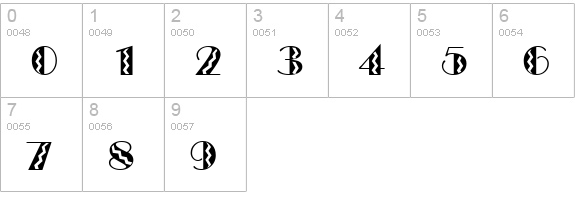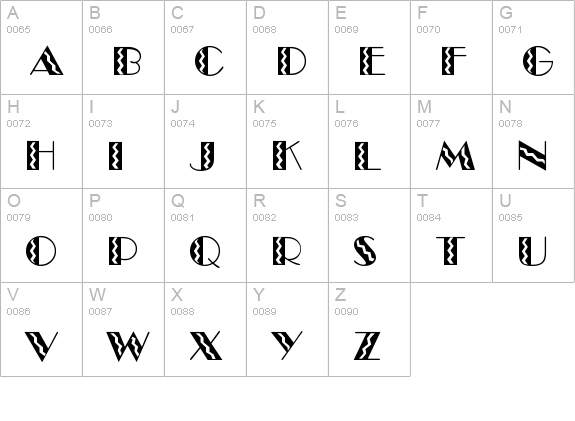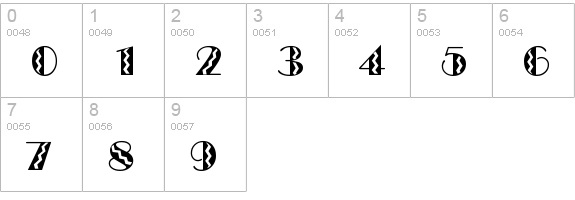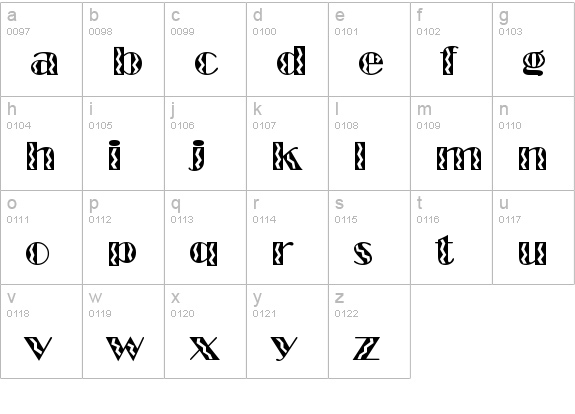
Circus Font Details
The Circus font is a whimsical and playful typeface that captures the spirit of the big top with its bold and decorative letterforms. Perfect for adding a touch of fun and excitement to any design project, this font is sure to make a statement and leave a lasting impression. Whether you're creating posters, invitations, or branding materials, the Circus font is a versatile choice that will bring a touch of vintage charm to your work. Best of all, the Circus font is available for free download at FontsMarket.com, making it easy to add this unique and eye-catching typeface to your collection. Don't miss out on the opportunity to bring a touch of circus magic to your designs with this fantastic font!